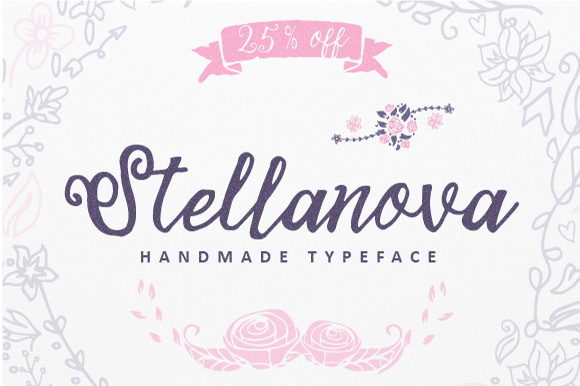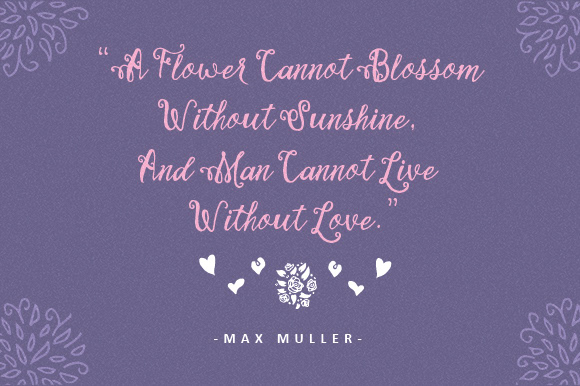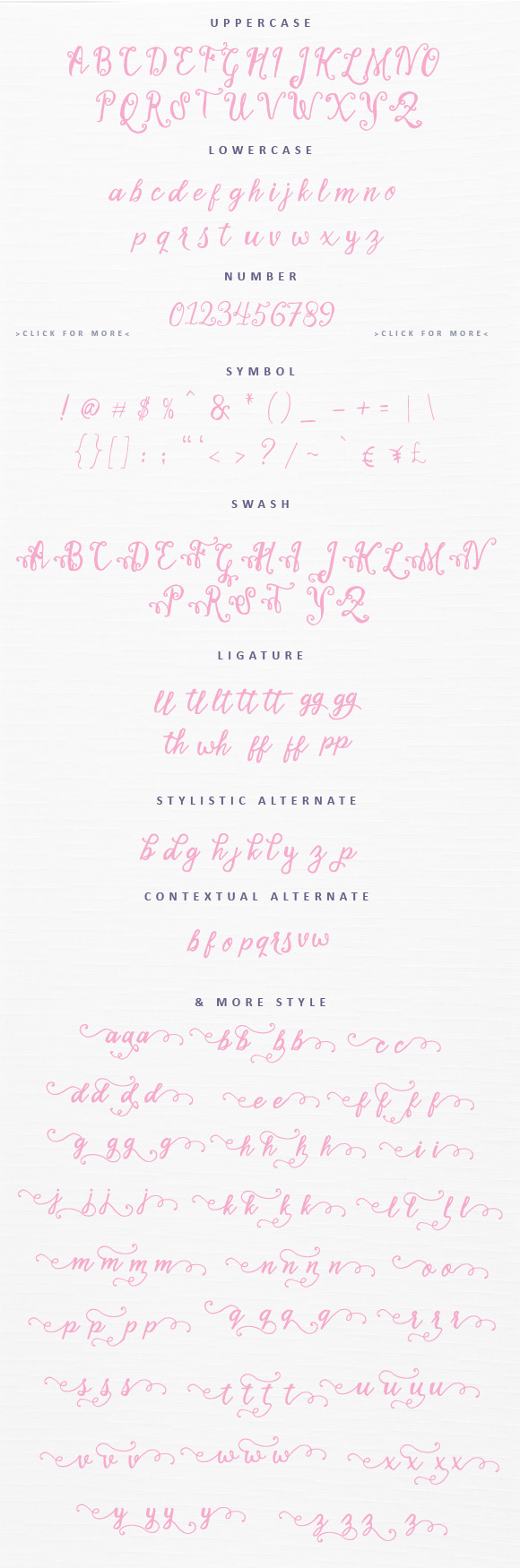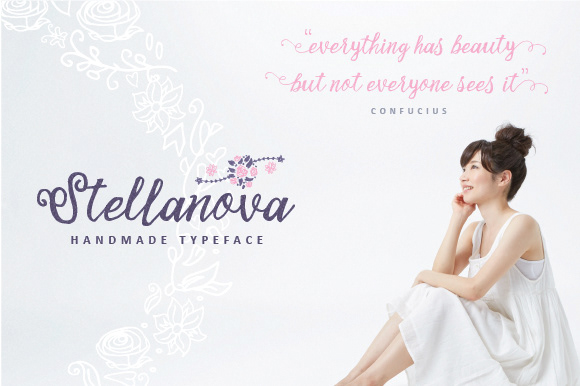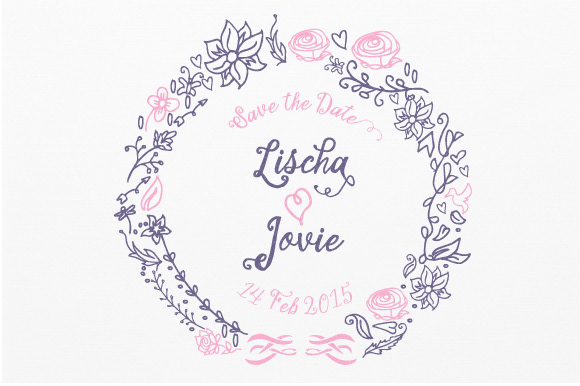
Stellanova Typeface is a handmade script typeface. Stellanova is suitable for wedding invitation, any greeting cards, retro / vintage design style, or any design that needs natural and personal touch. Mix and match the alternate characters to add an attractive message to your design.
338 glyphs and alternate character contain with opentype features. Stylistic alternates, Ornament, Swash and more.You can access all those alternate characters by using OpenType savvy programs such as Adobe Illustrator and Adobe InDesign.